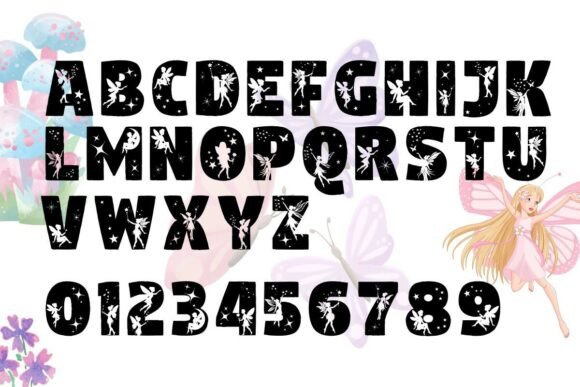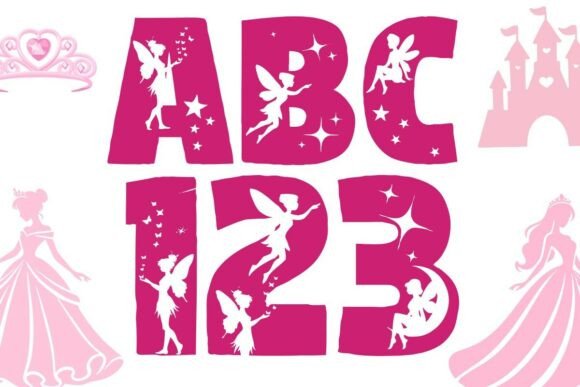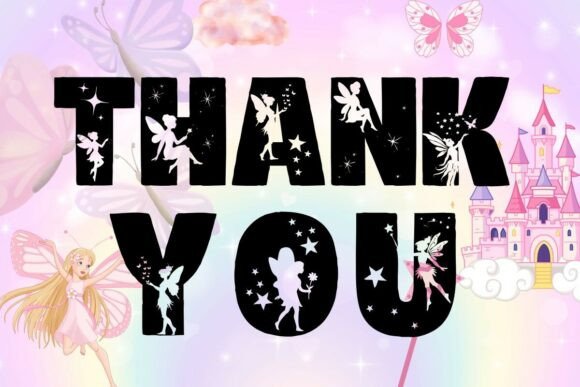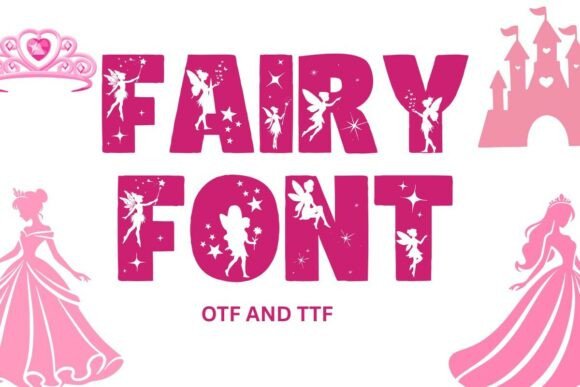
✨ Fairy Font: Add a Touch of Whimsy to Your Designs
Are you looking for a font that will transport your designs to a magical world of fantasy and enchantment? Look no further than the ✨ Fairy Font! This delightful typeface is specifically designed to add a touch of charm and whimsy to your creative projects. With its bold, crisp lines and enchanting style, Fairy Font is perfect for designers and crafters who want to create playful and eye-catching designs.
Key Features of Fairy Font
- Fantasy-inspired, enchanting style: Fairy Font is designed to evoke the magic and wonder of a fairy tale. Its unique and captivating style is sure to transport your designs to a world of fantasy and enchantment.
- Crisp vector outlines for high-quality printing: The font’s crisp vector outlines ensure that your designs will look great even when printed in high quality. Whether you’re creating business cards, brochures, or posters, Fairy Font is the perfect choice.
- Works great on both light and dark backgrounds: Fairy Font is versatile and works well on both light and dark backgrounds. This makes it easy to use in a variety of design applications, from digital graphics to print materials.
Important Note: Uppercase and Numbers Only
Please note that Fairy Font includes A-Z uppercase letters and 0-9 numbers only. It does not include lowercase letters, punctuation, or special accents. This makes it perfect for bold titles, headlines, and playful designs, but may not be suitable for body text or detailed writing.
Unleash Your Creativity with Fairy Font
Fairy Font is the perfect addition to any designer’s or crafter’s toolkit. Its unique and enchanting style is sure to add a touch of magic to your designs, while its compatibility with a wide range of design software makes it easy to use in a variety of applications. Whether you’re creating digital graphics, print materials, or crafting with your Cricut or Silhouette machine, Fairy Font is the perfect choice.